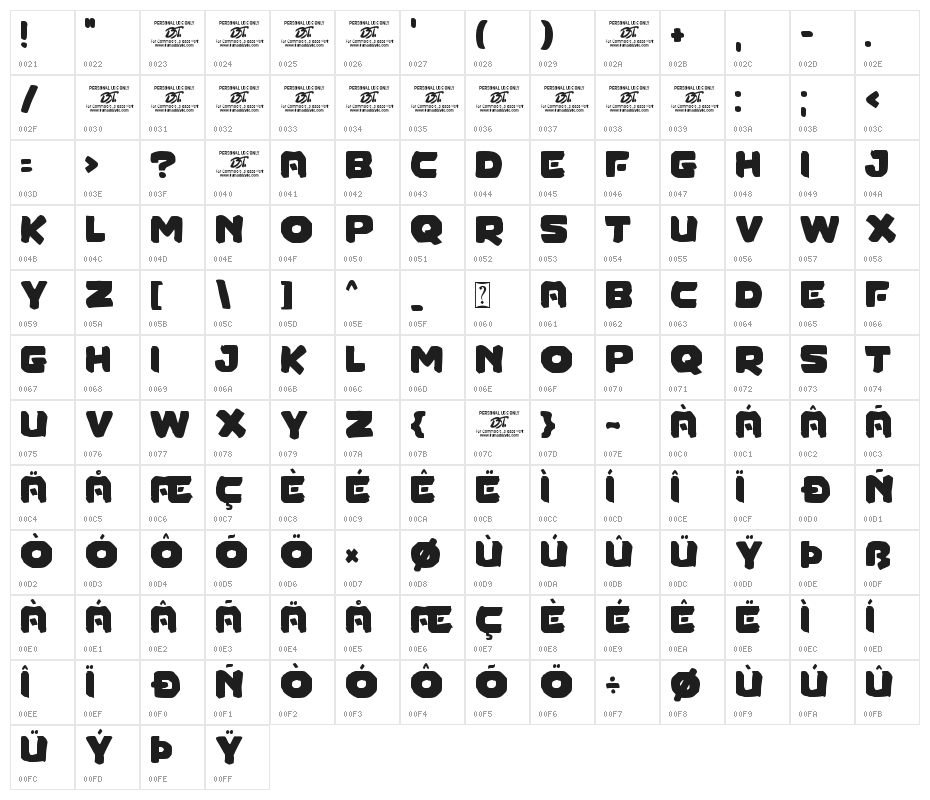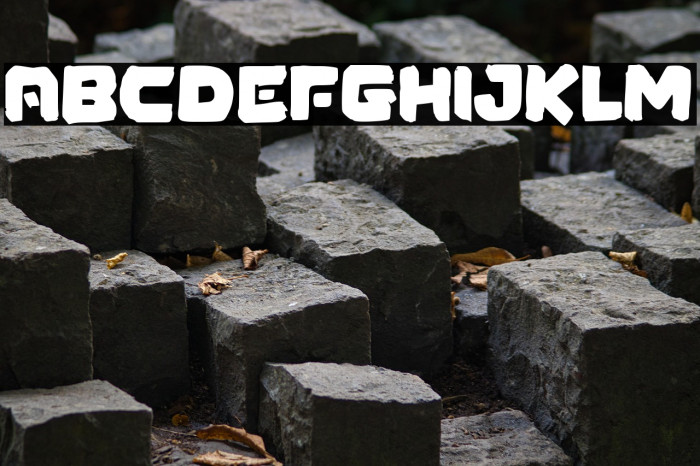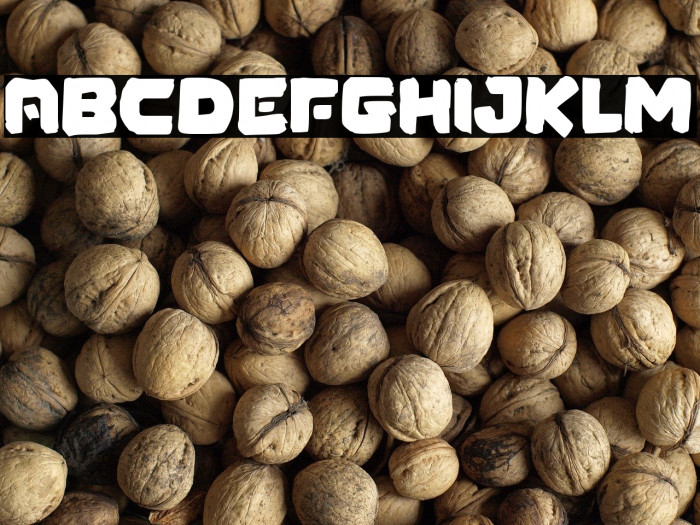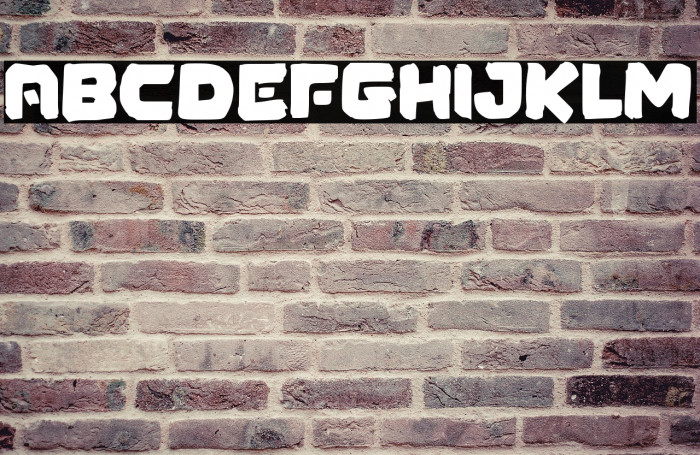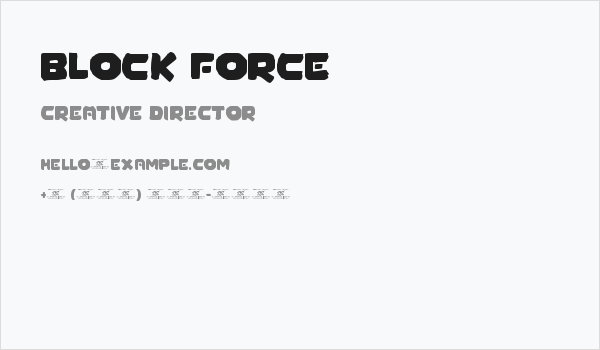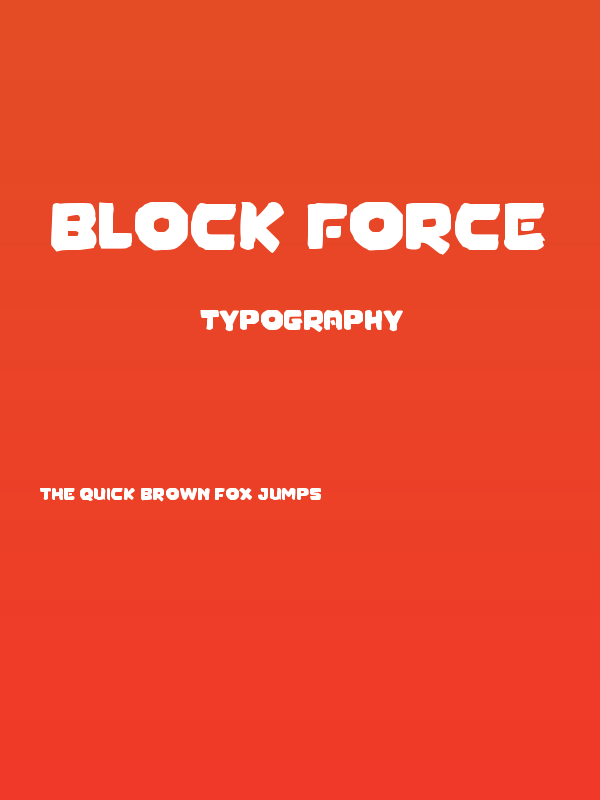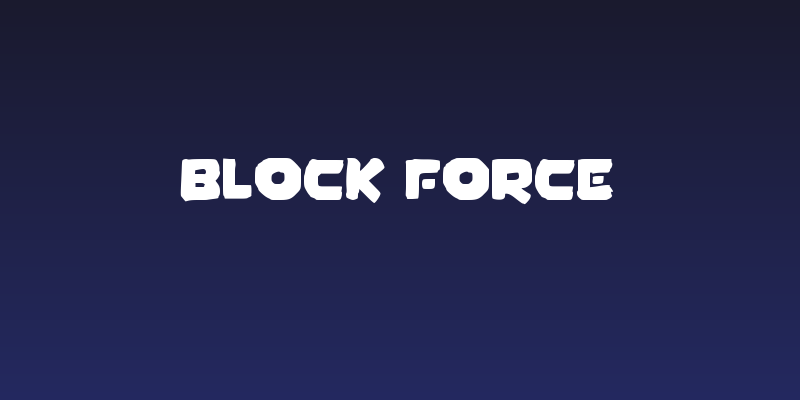
Block Force Font
Block Force Description
This font features a bold and impactful design with thick, blocky letters that convey a sense of strength and stability. The characters are uniformly wide, giving them a robust and powerful appearance. The edges are slightly rounded, softening the overall look while maintaining a strong presence. This style is particularly suited for attention-grabbing headlines or titles where a commanding visual impact is desired. The font's uniformity and boldness make it ideal for projects that require a modern and assertive aesthetic.
| Proposed Projects | Ideal for posters, logos, branding, and headlines that require a bold statement. |